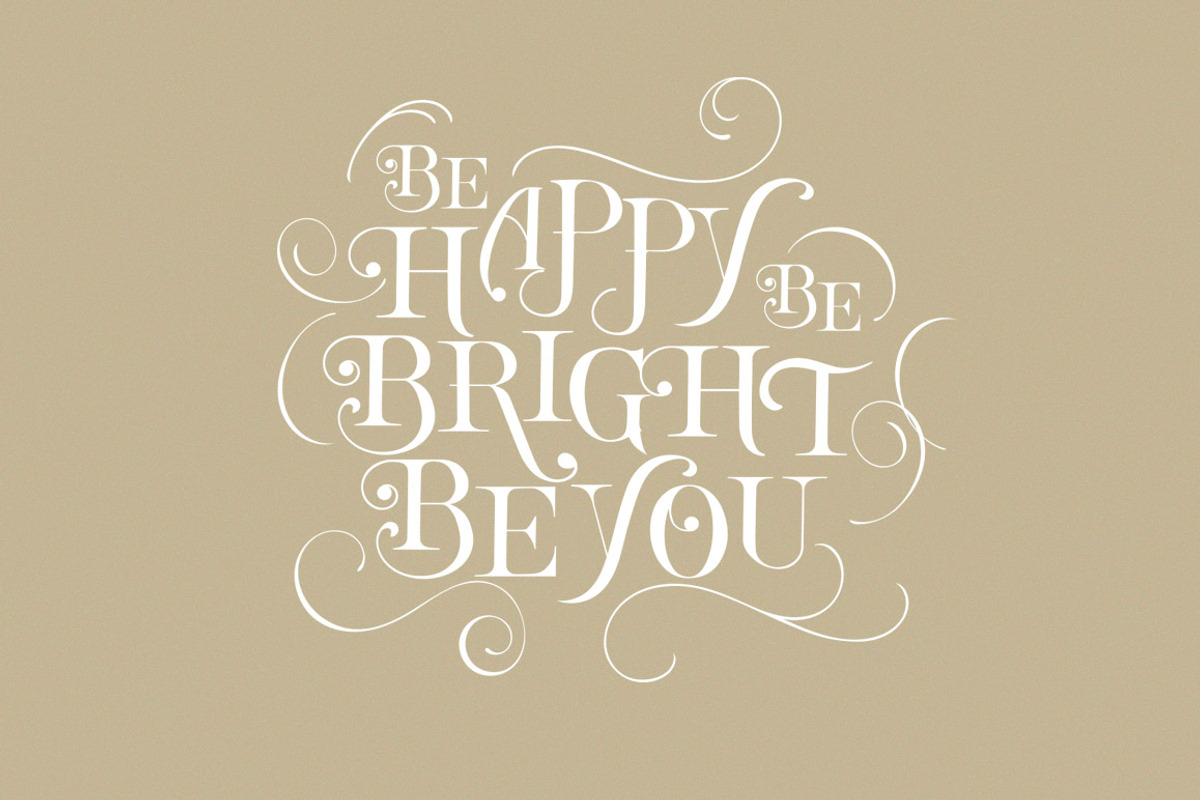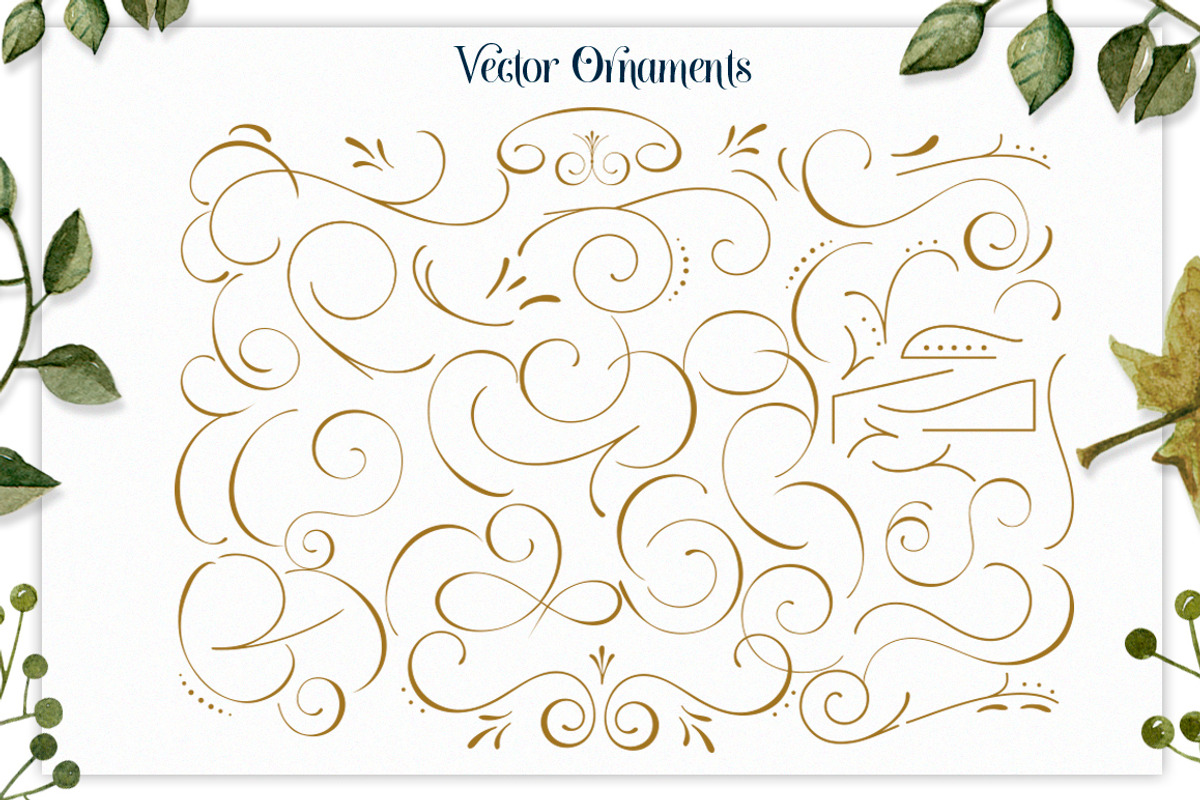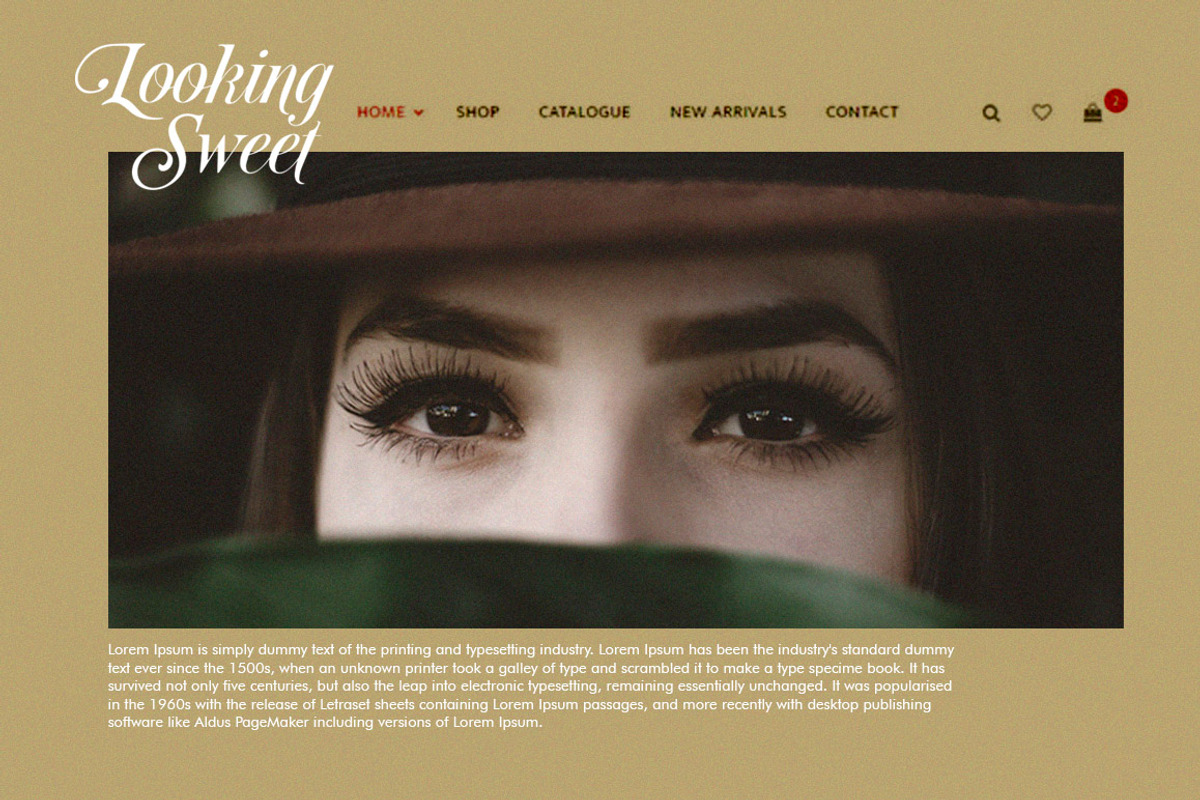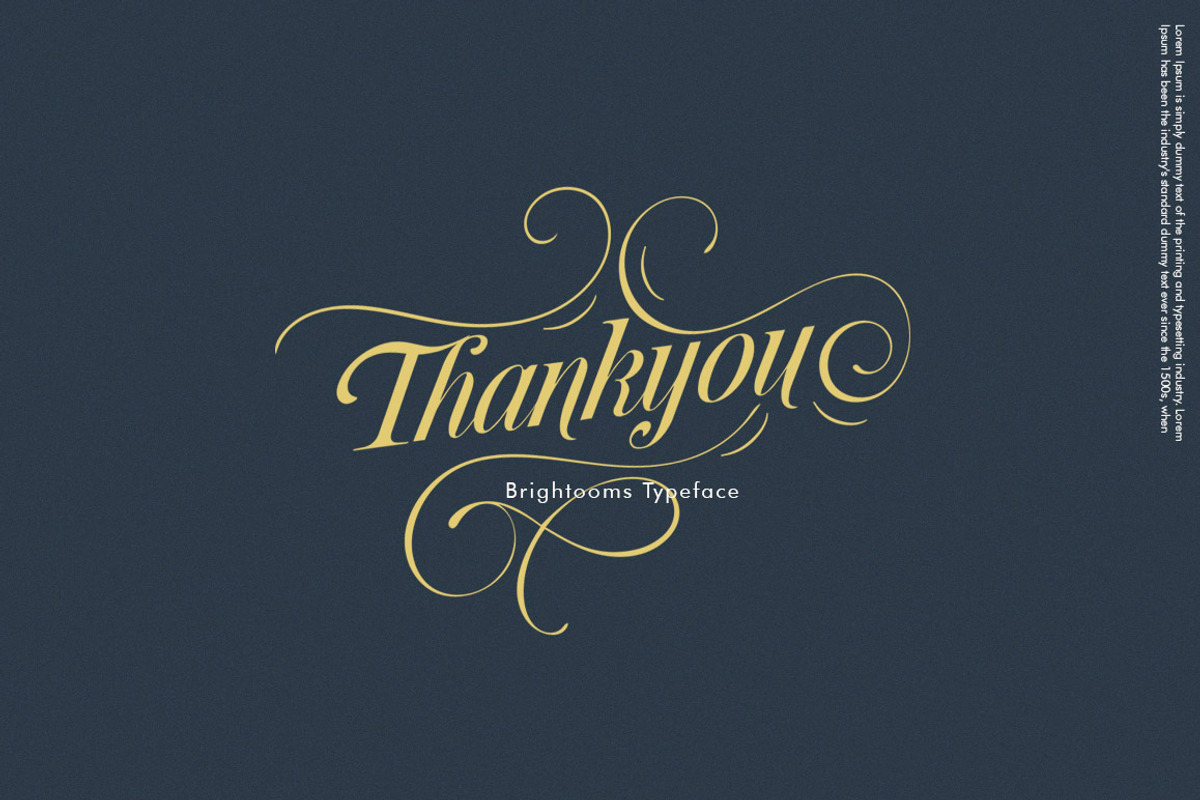
Broken Letters Modern Serif
Brightooms is a decorative and antique serif styled font, made for modern designs! This beautifully crafted serif font is editorial and reassuring, making it a great accompaniment to many designs, that makes for stunning logos, quotes, wedding invites, blog posts, Instagram, and more!
vintage aesthetics in a modern and minimalist way, Brightooms includes a full set of lowercase and uppercase with additional alternatives and ligature that make letters more elegant.